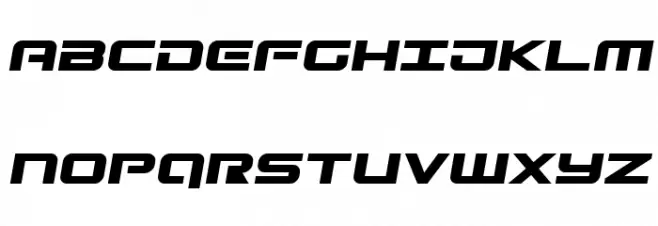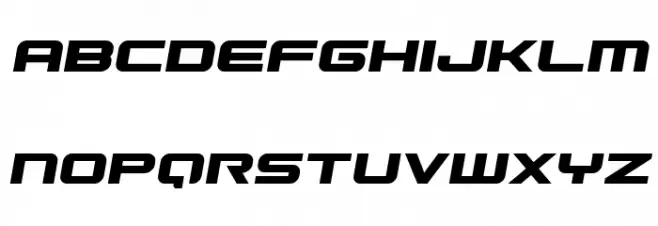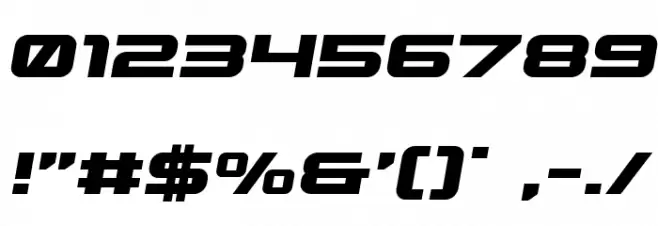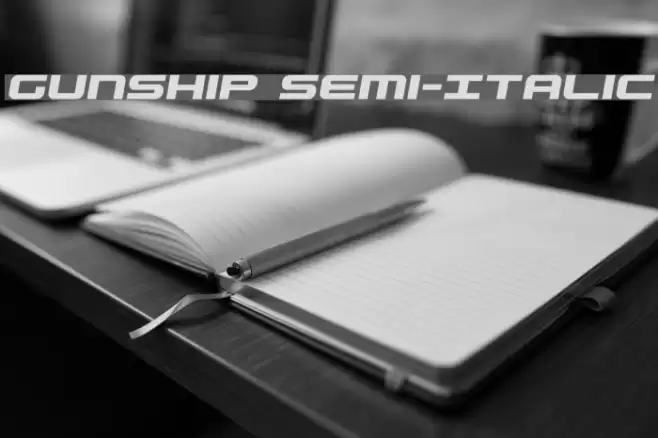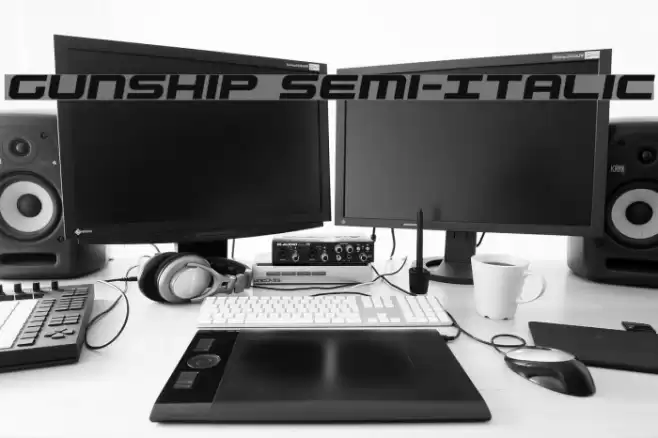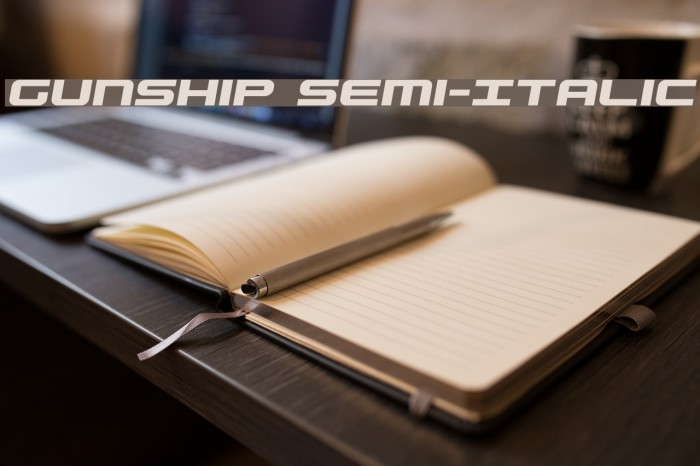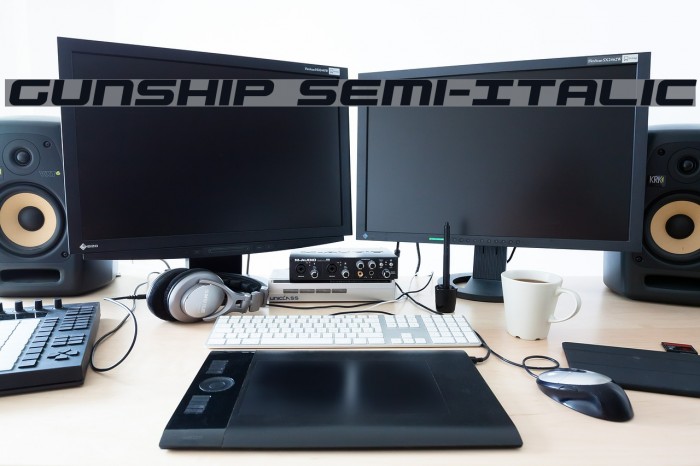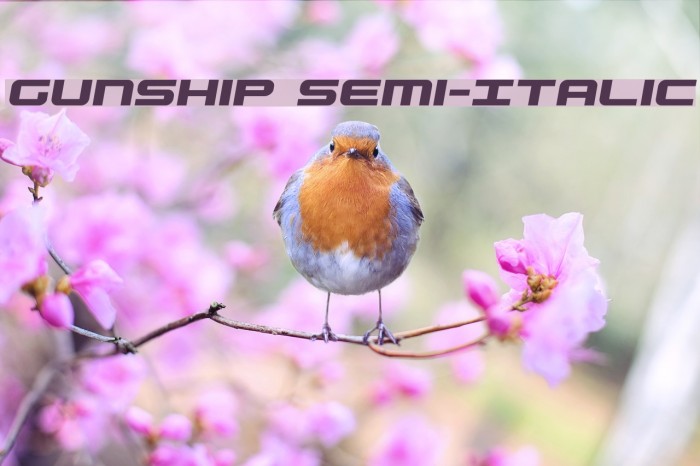
Gunship Semi-Italic
This font features a bold, futuristic design with a semi-italic slant, giving it a dynamic and forward-moving appearance. The characters are wide and angular, with sharp edges and a consistent stroke width that adds to its modern aesthetic. The uppercase and lowercase letters maintain a uniform style, enhancing readability while retaining a unique flair. The numerals and special characters are designed to match the overall theme, making the font versatile for various applications. Its bold presence and sleek lines make it suitable for projects that require a strong visual impact.
A bold, futuristic font with a semi-italic slant and angular design.
- Proposed Projects: Ideal for sci-fi themed designs, video game graphics, technology branding, and dynamic posters.
- Width: Expanded
- Use Case: Headlines, Logos, Posters